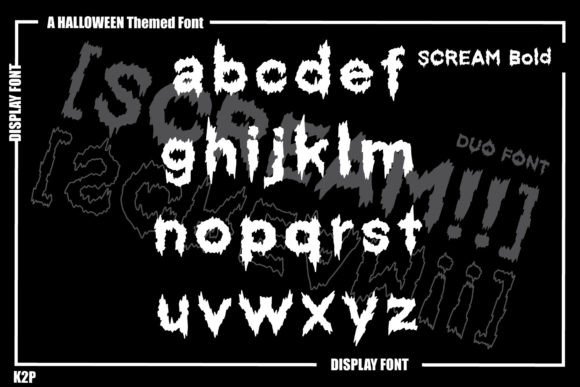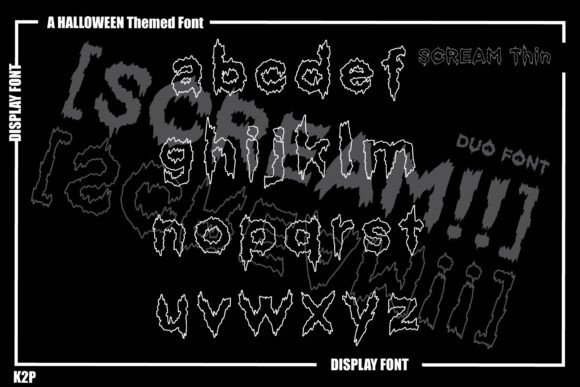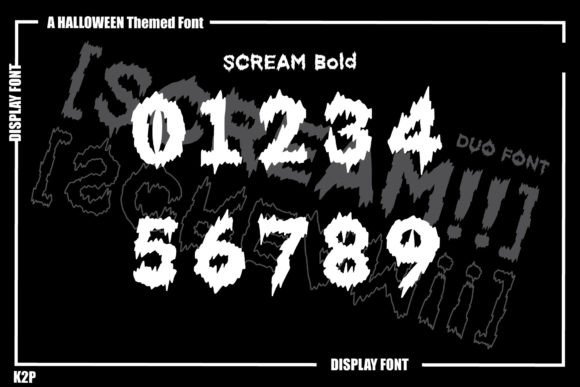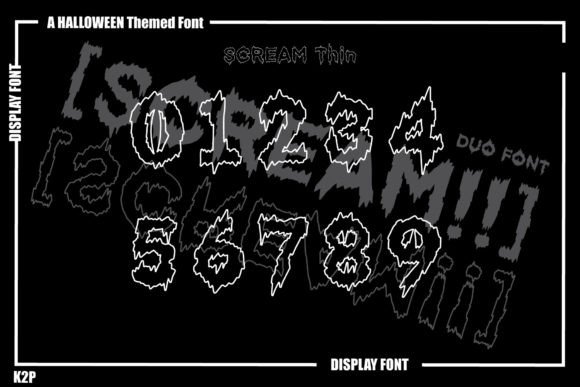
Introduction to [scream!!] Font
[Scream.
] is a cool and quirky decorative font Whether you use it for cartoon-related designs, children’s games, or just any creation that requires a lovely touch, this font will be an amazing choice.
Key Features of [scream!!] Font
Why Choose [scream!!] Font?
[scream!!] Font offers exceptional quality and versatility, making it a valuable addition to your design toolkit. Whether you’re creating for personal projects or commercial use, [scream!!] Font delivers professional results.